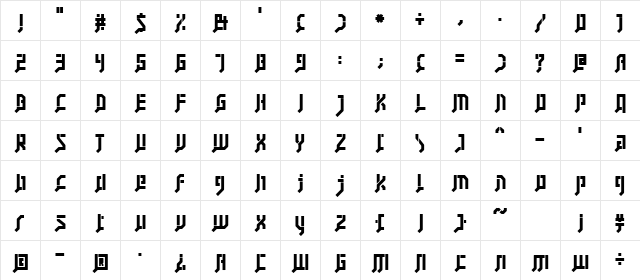
FSB08KlangStencilAl Regular
Design Context for FSB08KlangStencilAl Typeface
FSB08KlangStencilAl has the rough pragmatism of spray-painted stencil signage, adding a raw, street-level authenticity to designs.
Ideal for industrial branding, streetwear, military-adjacent aesthetics, and urban signage projects.